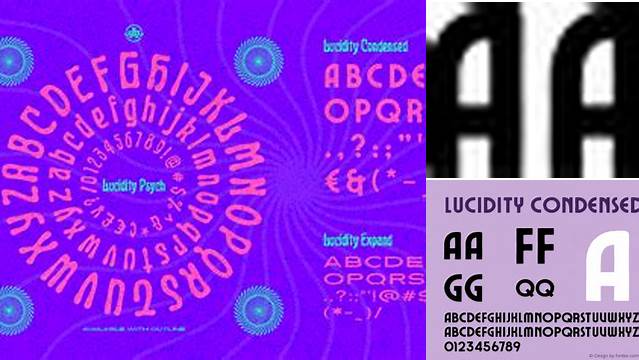
Hey guys! Ready to jazz up your designs with a sleek, modern font? Let's dive into the world of AYR Lucidity Condensed Regular, a font that's both stylish and super versatile. In this article, we'll cover everything you need to know: where to snag a free download of the .ttf file, how to use it, and why it's a fantastic choice for various projects. Get ready to elevate your typography game!
What is AYR Lucidity Condensed Regular?
AYR Lucidity Condensed Regular is a modern, condensed sans-serif font, which means it's clean, legible, and takes up less horizontal space than a regular font. This is perfect when you need to fit more text into a limited area without sacrificing readability. The 'condensed' aspect of the font makes it an excellent choice for headlines, subheadings, and any design where space is at a premium. Its clean lines and contemporary feel make it suitable for a wide range of applications, from website design and branding to print materials like posters and brochures. The regular weight is a good balance, ensuring the font is not too heavy or too light, maintaining a good level of visual impact without being overwhelming. The letterforms are carefully designed to be easily readable even at smaller sizes, which is critical for body text in some instances. With this font, it's easy to create a cohesive and visually appealing design. This font is a testament to modern design principles, offering a sophisticated aesthetic that can enhance any creative project. The simplicity of this font makes it very versatile, and it can complement a variety of design styles, whether you are going for a minimalist look or something more elaborate. Choosing the right font is essential, and AYR Lucidity Condensed Regular offers the perfect blend of style, functionality, and ease of use. It is a great choice for anyone looking to modernize their design with a clean and efficient typeface, perfect for both professional and personal projects. The design of the font is intentionally crafted to be visually appealing and easy on the eyes, making it a fantastic option for extended reading. The font is perfect for those looking for a clean, modern, and space-saving typeface, and can be integrated into a variety of design contexts with minimal effort. The versatility of this font is one of its key advantages, which makes it an excellent choice for all kinds of creative projects.
- Condensed Design: Saves horizontal space, perfect for headlines and tight layouts.
- Clean Sans-serif: Modern and easy to read, suitable for digital and print.
- Versatile Usage: Works well for various applications, from websites to print materials.
- Legibility: Designed to be easily readable at different sizes.
How to Use AYR Lucidity Condensed Regular in Your Designs
Best Practices for Usage
- Headlines and Subheadings: Use it to create attention-grabbing titles.
- Short Text Blocks: Works well for captions and brief descriptions.
- Pairing with Other Fonts: Combine it with a contrasting font for body text to create visual interest.
- Consider Readability: Ensure it is easily readable at the chosen size and color.
Conclusion: Why Choose AYR Lucidity Condensed Regular?
So, why should you choose AYR Lucidity Condensed Regular for your next project? This font's combination of a condensed design, clean lines, and high readability makes it an outstanding choice for designers and creatives. It's a modern, versatile font that can elevate the aesthetic of any design. Whether you're working on a website, a poster, or a branding project, this font offers a stylish and efficient solution. Plus, the fact that you can download it for free makes it a fantastic resource for designers on a budget. The font's adaptability allows for numerous creative applications, and it can be integrated into both digital and print media. It’s the perfect choice for anyone looking to enhance their designs with a professional touch. If you're looking for a font that is both stylish and practical, AYR Lucidity Condensed Regular is a solid option. The font's design ensures that it's easy to read and visually pleasing, helping your designs stand out. Overall, this is a great font to download and use for your projects, giving them a modern look and feel. So, what are you waiting for, guys? Go download AYR Lucidity Condensed Regular and start creating!